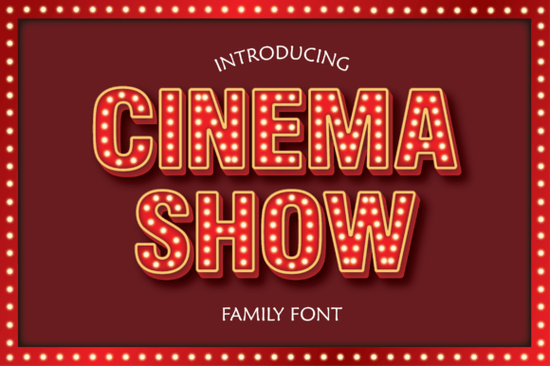
Cinema Show Font is a standout choice for anyone looking to add a touch of flair to their design projects. Whether you're working on a personal craft, a print-on-demand product, or a small business logo, this decorative font offers a unique style that can make your work stand out. Its bold and eye-catching design makes it ideal for headings, banners, and other visual elements where impact matters.
Designers and creative hobbyists often search for fonts that bring personality to their work without being too complicated to use. Cinema Show Font fits this need perfectly. It’s easy to read while still maintaining a strong visual presence, making it suitable for both digital and print applications. The font’s versatility means it can be used across different platforms and projects, from social media graphics to t-shirt designs.
For print-on-demand sellers, having a distinctive font like Cinema Show can help differentiate products in a crowded market. It adds a professional and stylish look that appeals to a wide range of customers. Small businesses can also benefit from using this font to create branding materials that feel polished and modern.
What Makes Cinema Show Font Unique?
Cinema Show Font stands out because of its combination of elegance and creativity. Unlike more traditional fonts, it brings a sense of movement and energy that can enhance the overall design. This makes it especially useful for projects that aim to capture attention, such as movie posters, event flyers, or promotional banners.
The font is designed with clarity in mind, ensuring that even when used in larger sizes, it remains legible. This balance between style and functionality is what makes it a popular choice among designers. It’s also available in multiple weights, giving users more flexibility when creating different types of content.
How to Use Cinema Show Font in Your Projects
One of the best ways to start using Cinema Show Font is by incorporating it into your next design project. Whether you’re working on a website header, a social media post, or a printed flyer, this font can add a fresh and dynamic look. Try pairing it with simpler fonts for a balanced composition, or use it on its own for maximum impact.
If you're new to using decorative fonts, start with a small element, like a title or a tagline. This allows you to see how the font works in practice without overwhelming your design. As you become more comfortable, you can experiment with using it in more prominent areas of your work.
Final Thoughts
Cinema Show Font is a valuable addition to any designer’s collection. Its unique style and practical use make it a go-to choice for a variety of creative projects. Whether you're a seasoned designer or just starting out, this font can help you achieve a more polished and engaging look.
Before you move forward, take a moment to explore how this font could fit into your current or future designs. Experiment with different layouts and pairings to see what works best for your style. With a little creativity, Cinema Show Font can become a key part of your design process.